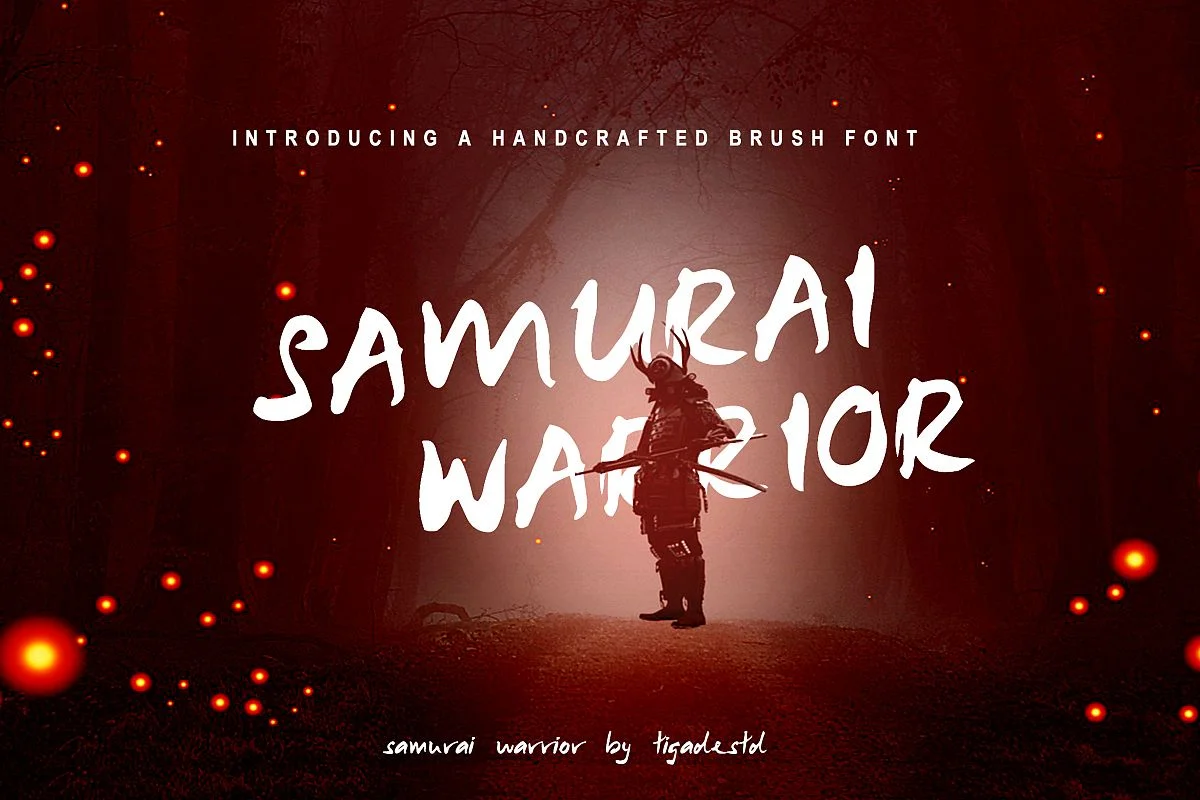
Samurai Warrior Font
Samurai Warrior Font is perfect for martial arts dojo branding, Japanese restaurant logos, action movie posters, video game interfaces, Asian-inspired designs, warrior-themed apparel, historical documentary titles, combat sports marketing, anime convention graphics, and powerful projects that celebrate the honor, discipline, and legendary strength of ancient Japanese warrior culture.
This font is exciting because it channels the fearless spirit and unwavering discipline of samurai warriors through bold, commanding letterforms inspired by traditional Japanese aesthetics and martial traditions. The powerful character design embodies honor, strength, and the timeless warrior code of bushido, making it perfect for projects that need to convey courage, mastery, and the indomitable spirit of legendary fighters.
The Samurai Warrior Font family typically includes uppercase and lowercase characters, numerals, punctuation marks, Asian-inspired decorative elements, and stylistic variations that enable designers to create authentic warrior-themed compositions with cultural respect and dramatic impact.